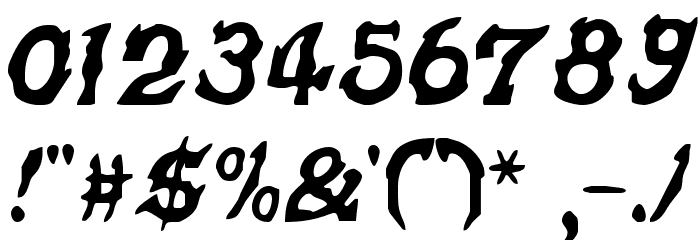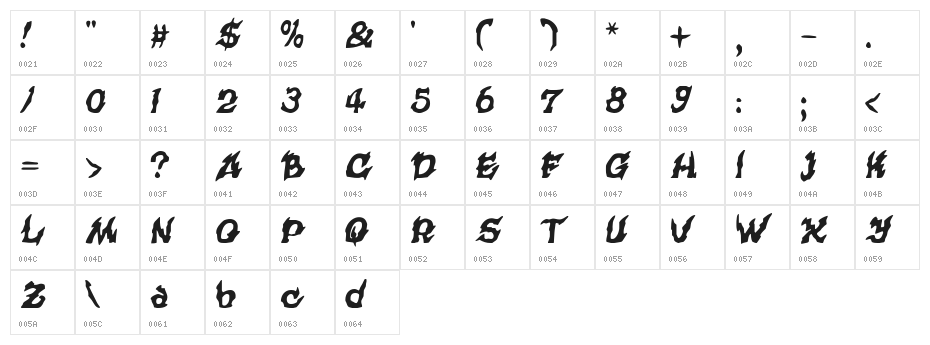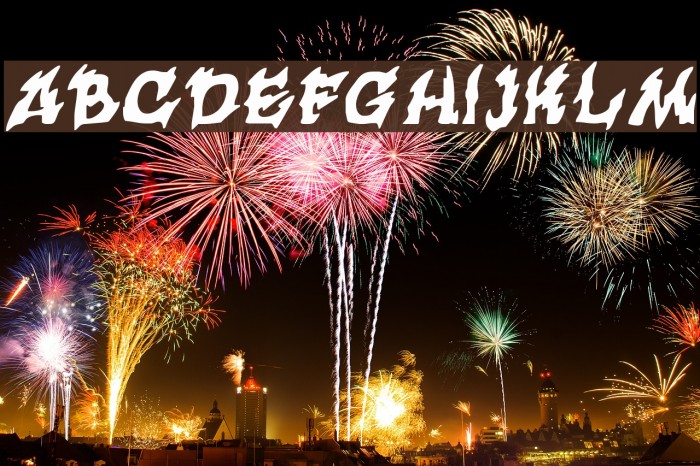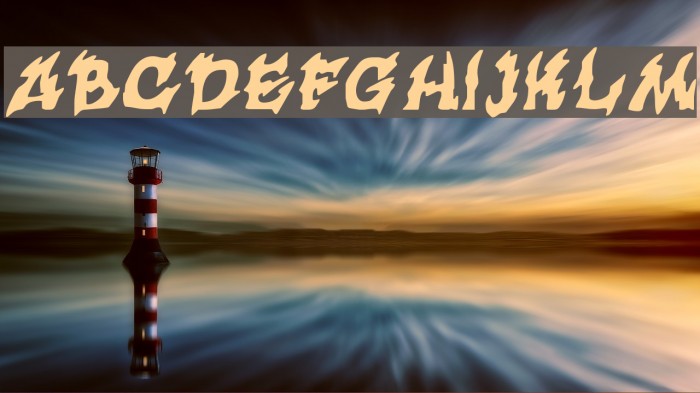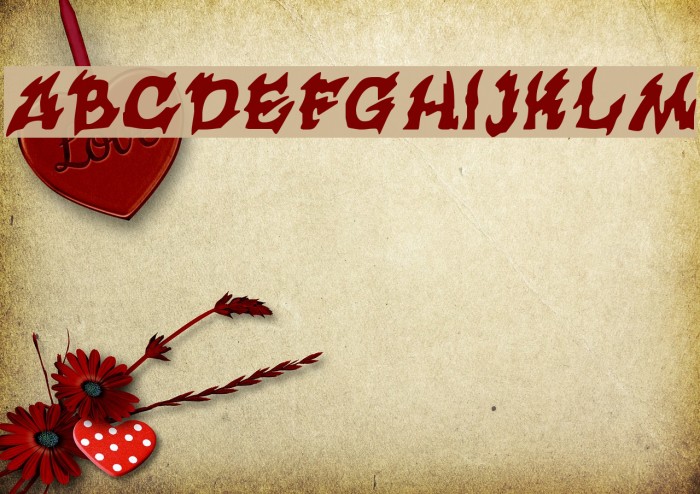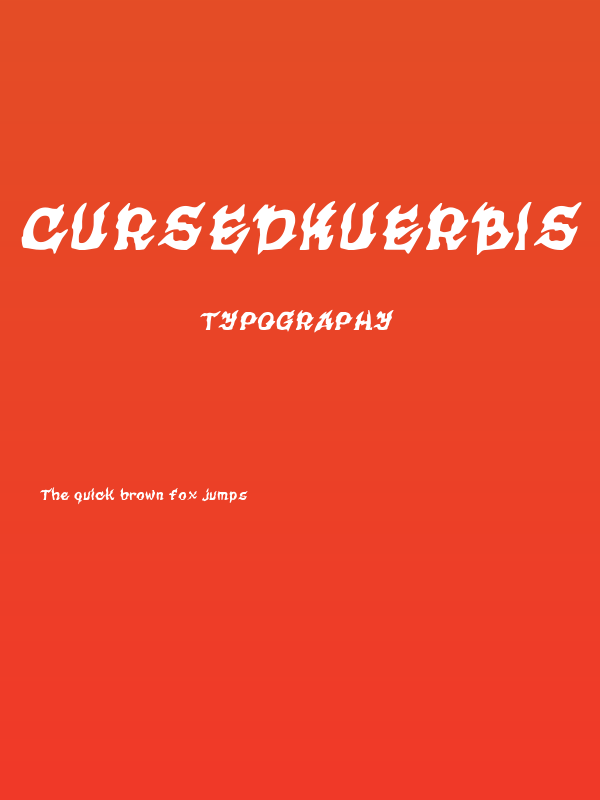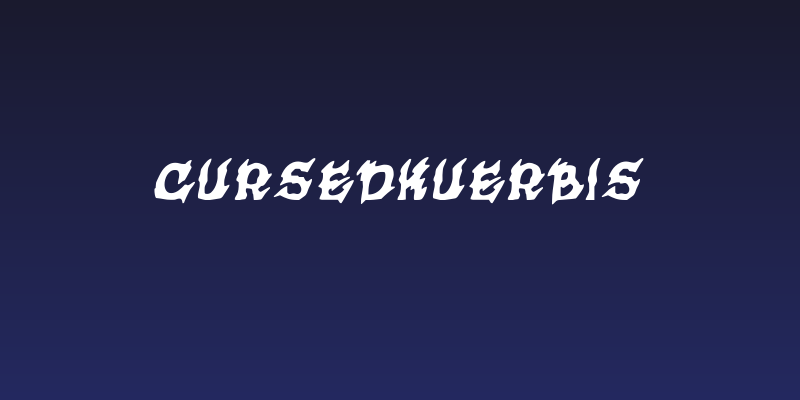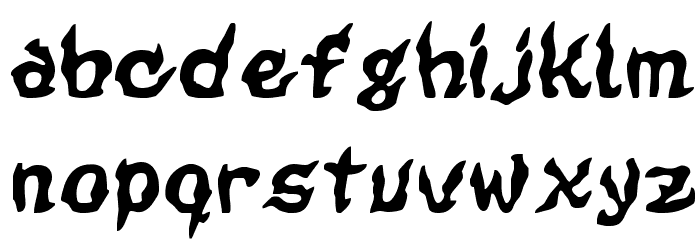
CursedKuerbis Font
CursedKuerbis Description
This font features a bold and jagged style, reminiscent of hand-carved letters. The characters have an irregular, almost chaotic appearance, with sharp angles and uneven edges that give it a distinctly eerie and unsettling vibe. The uppercase letters are particularly striking, with exaggerated serifs and a sense of movement that suggests they are almost alive. The lowercase letters maintain this dynamic style, though they are slightly more restrained. Numbers and special characters follow the same design principles, ensuring consistency throughout. This font is perfect for projects that require a dramatic and eye-catching typeface.
| Use Case | Headlines, Posters, Themed Events |
| Proposed Projects | Ideal for Halloween-themed designs, horror movie posters, or any project needing a spooky, dramatic typeface. |